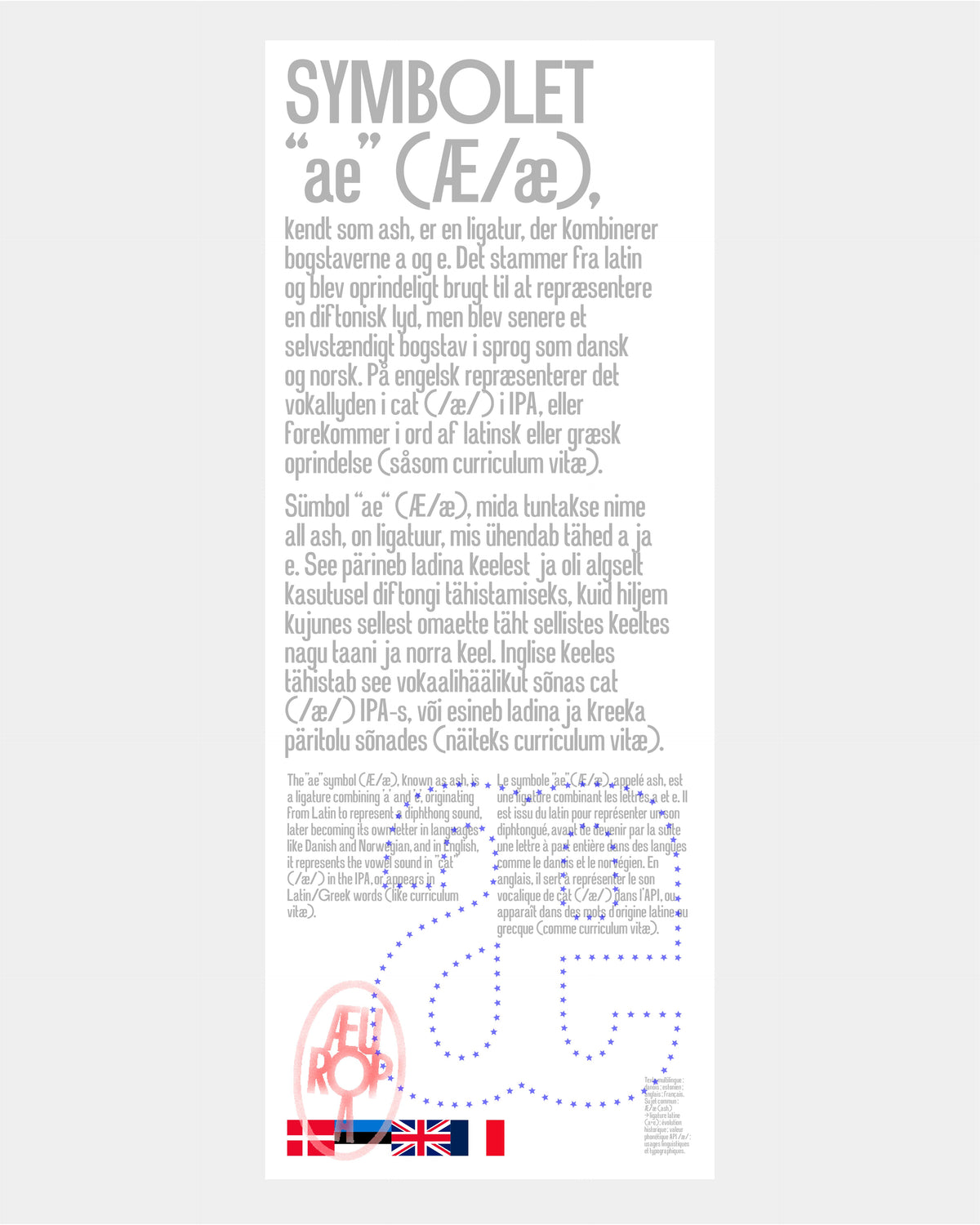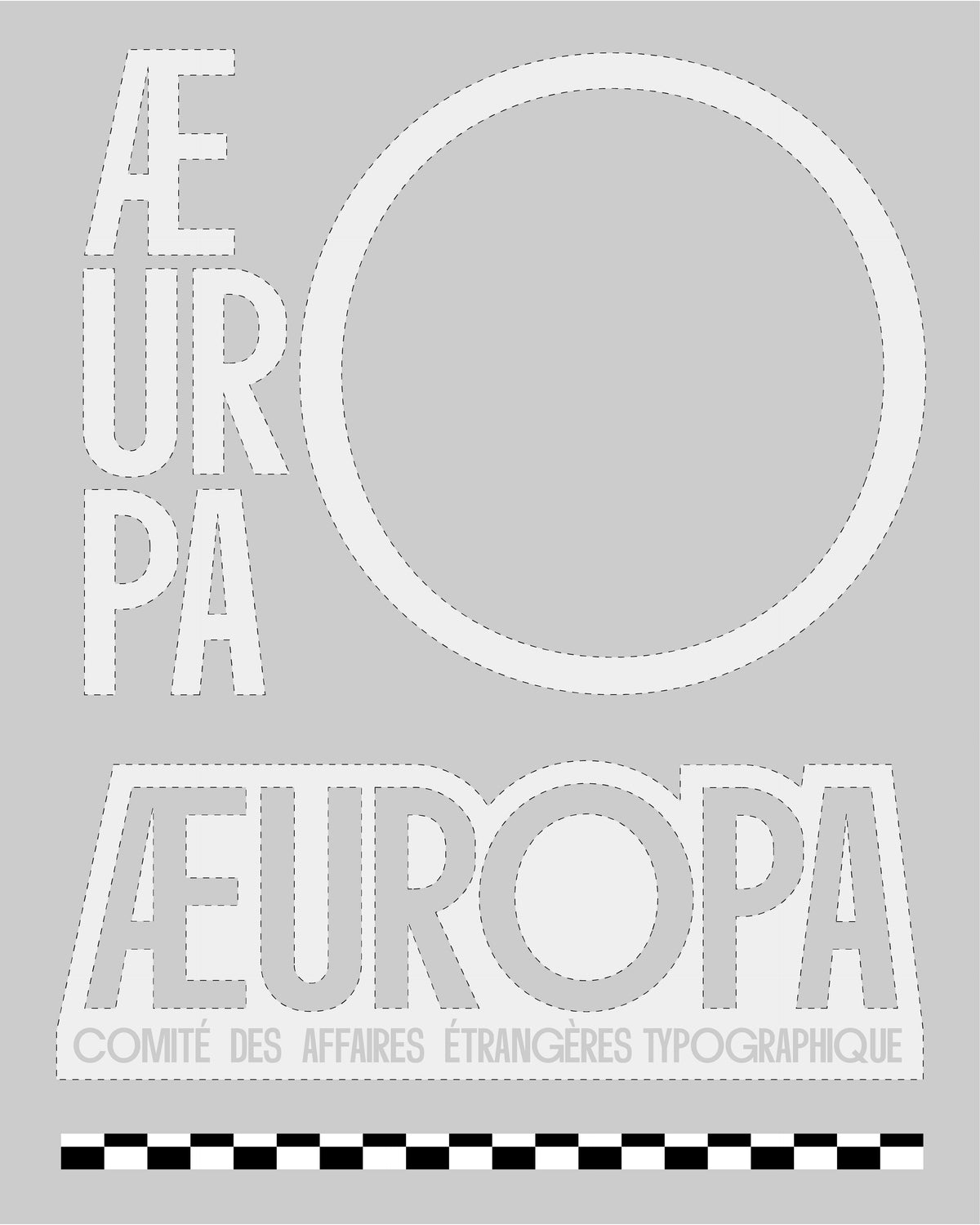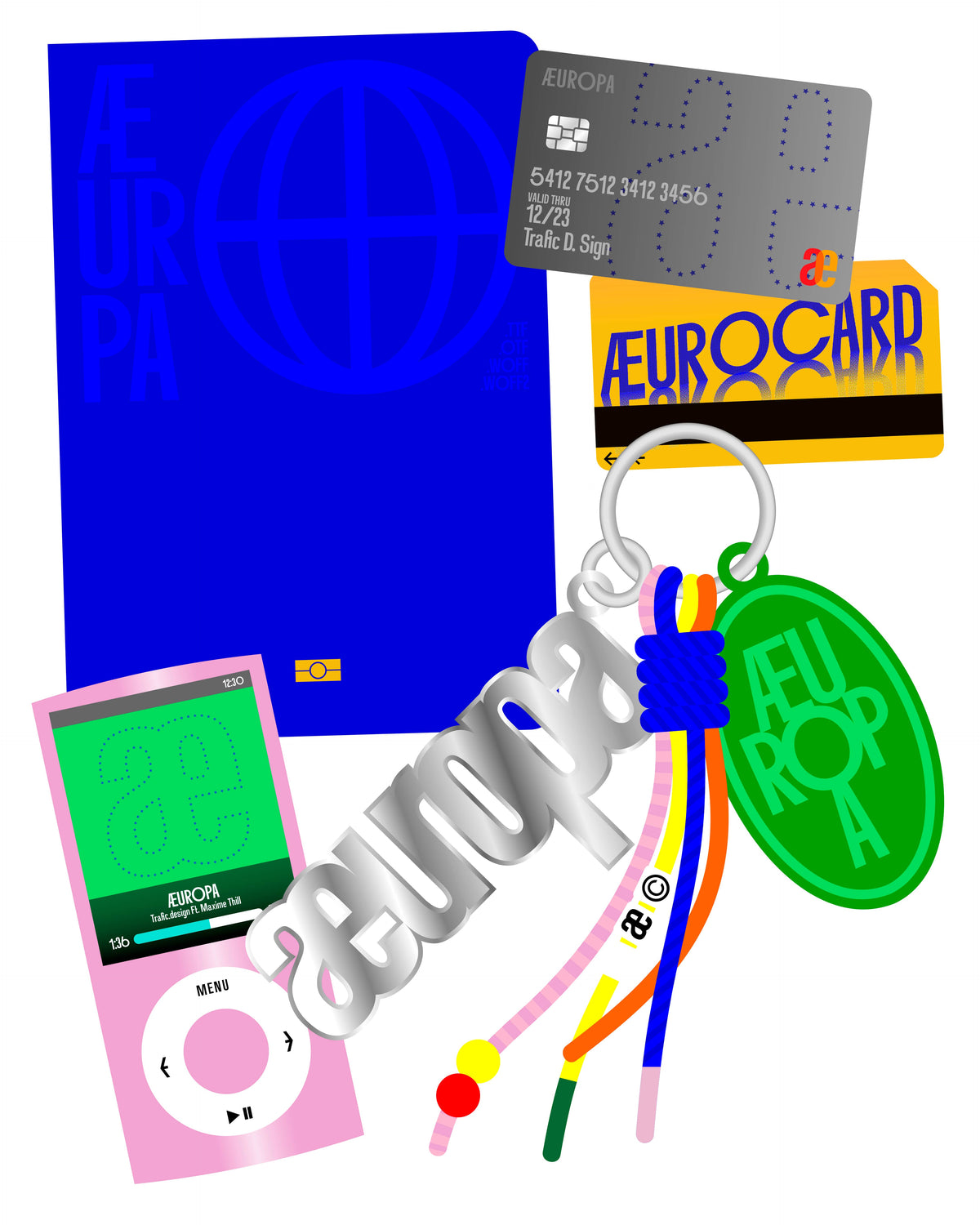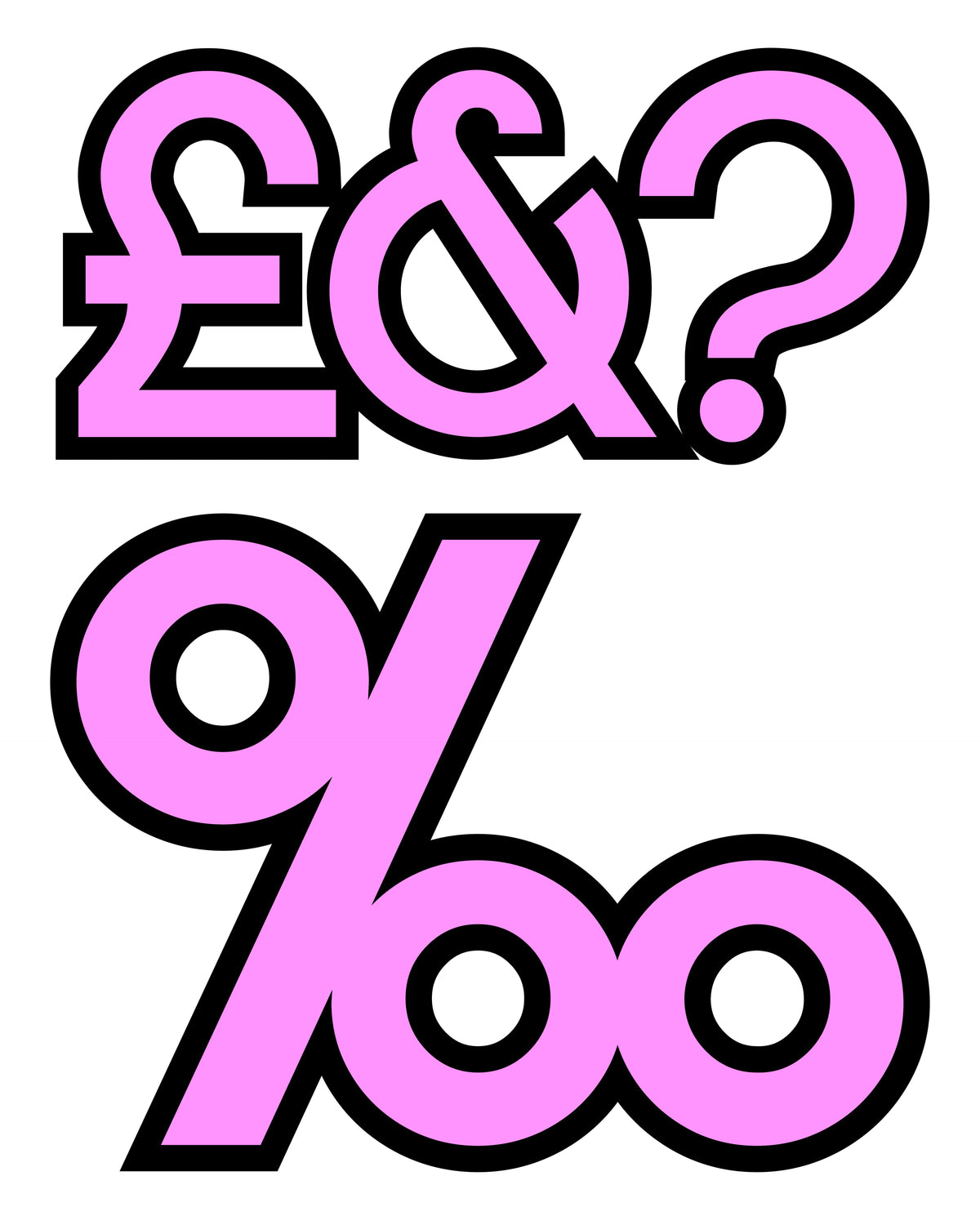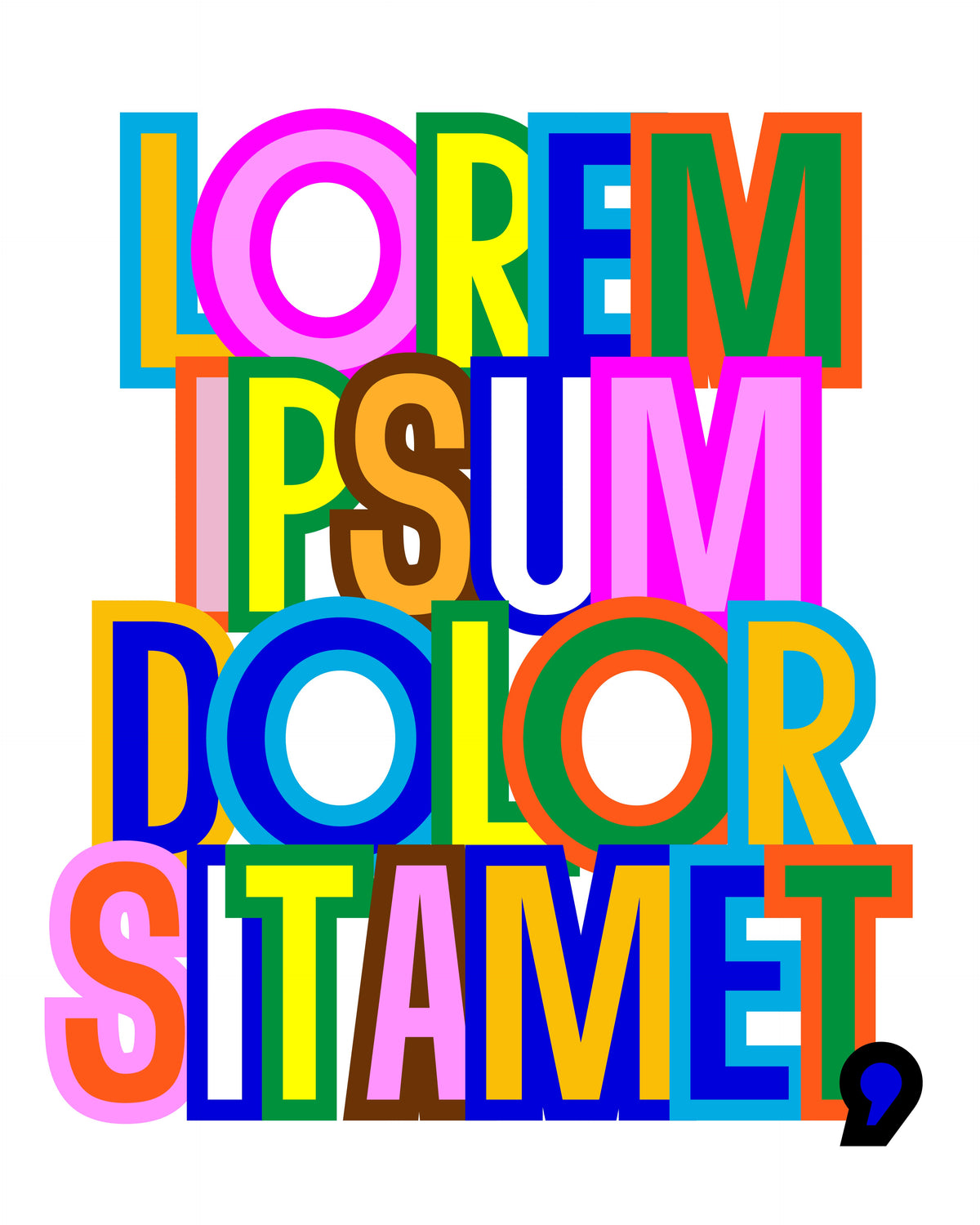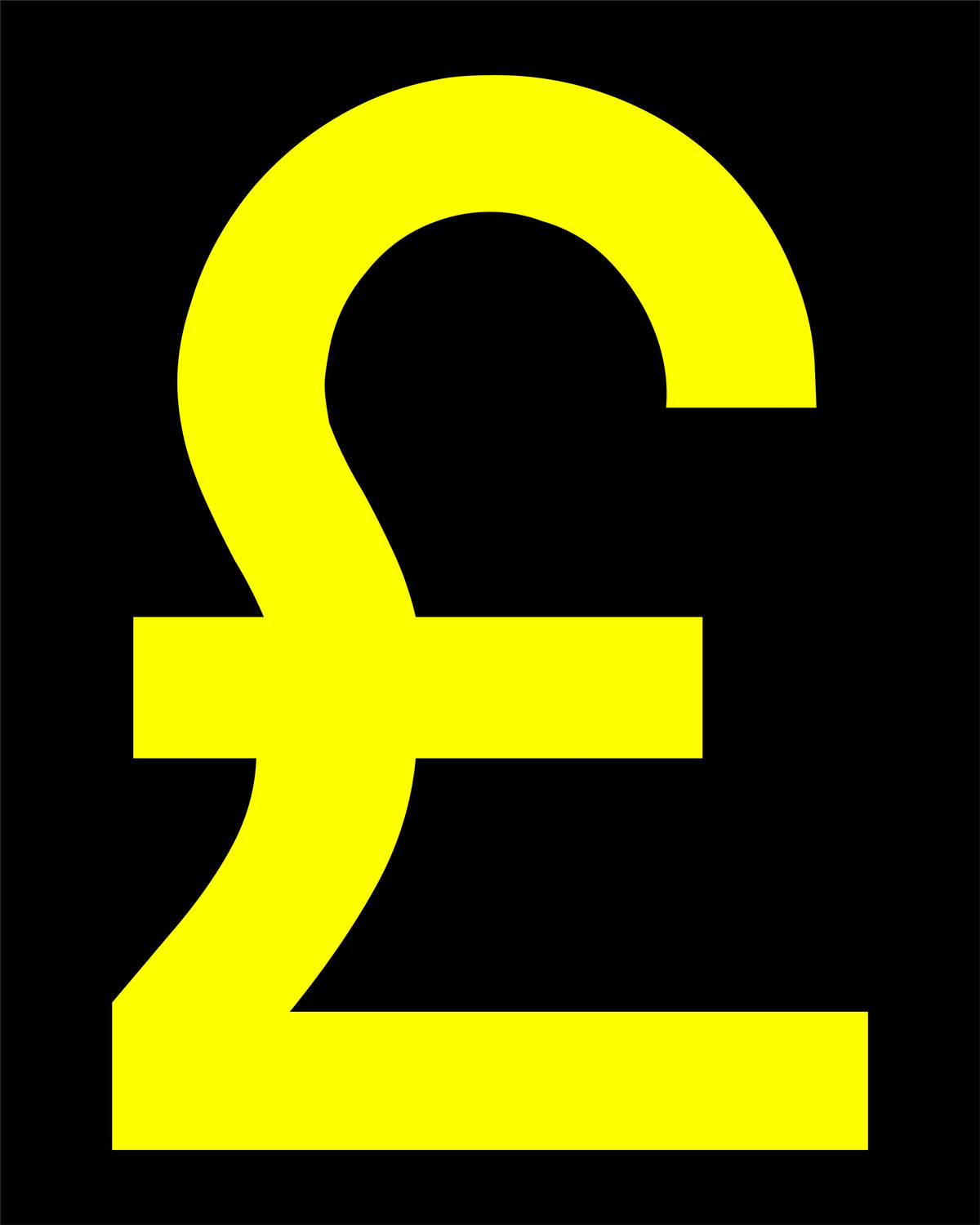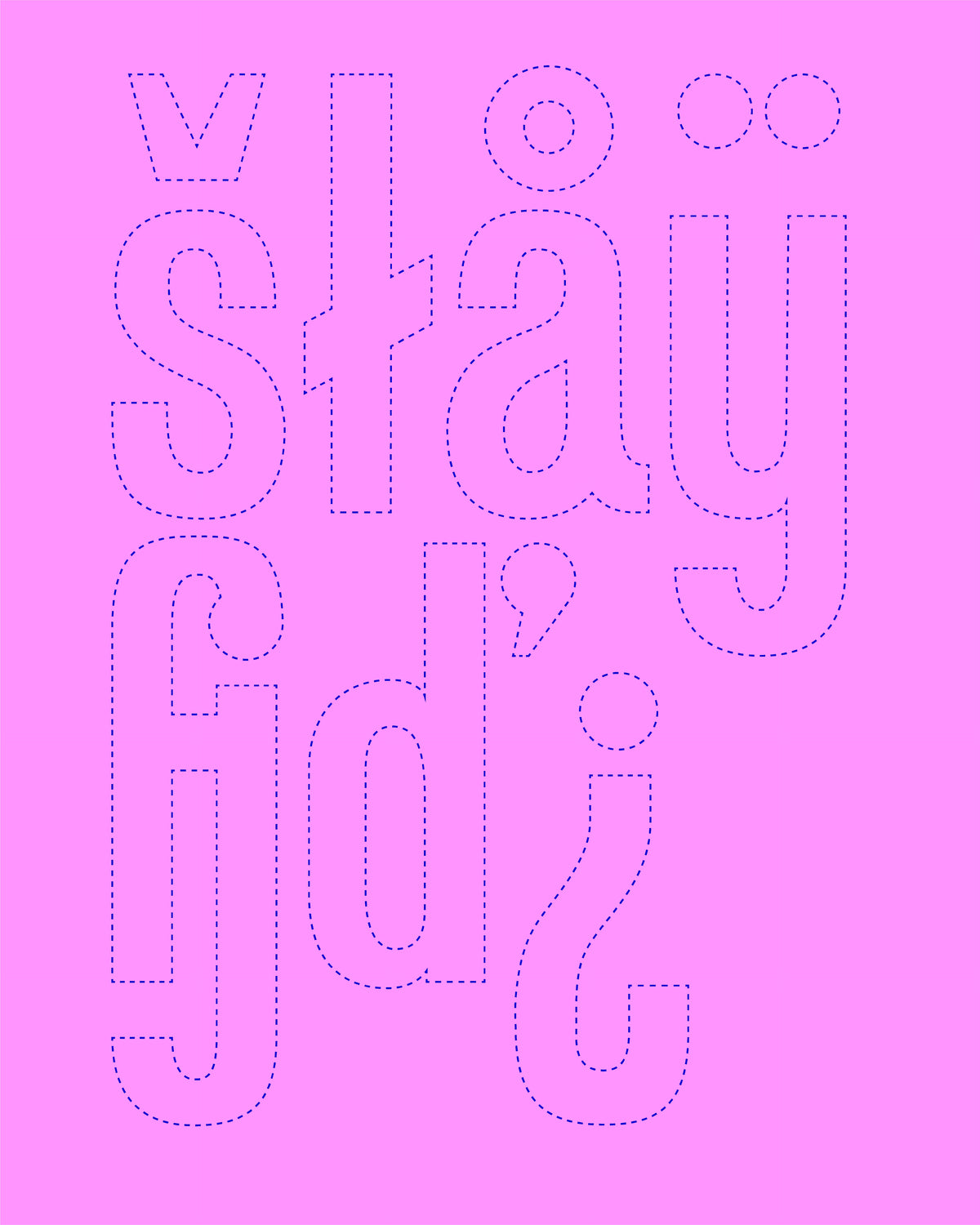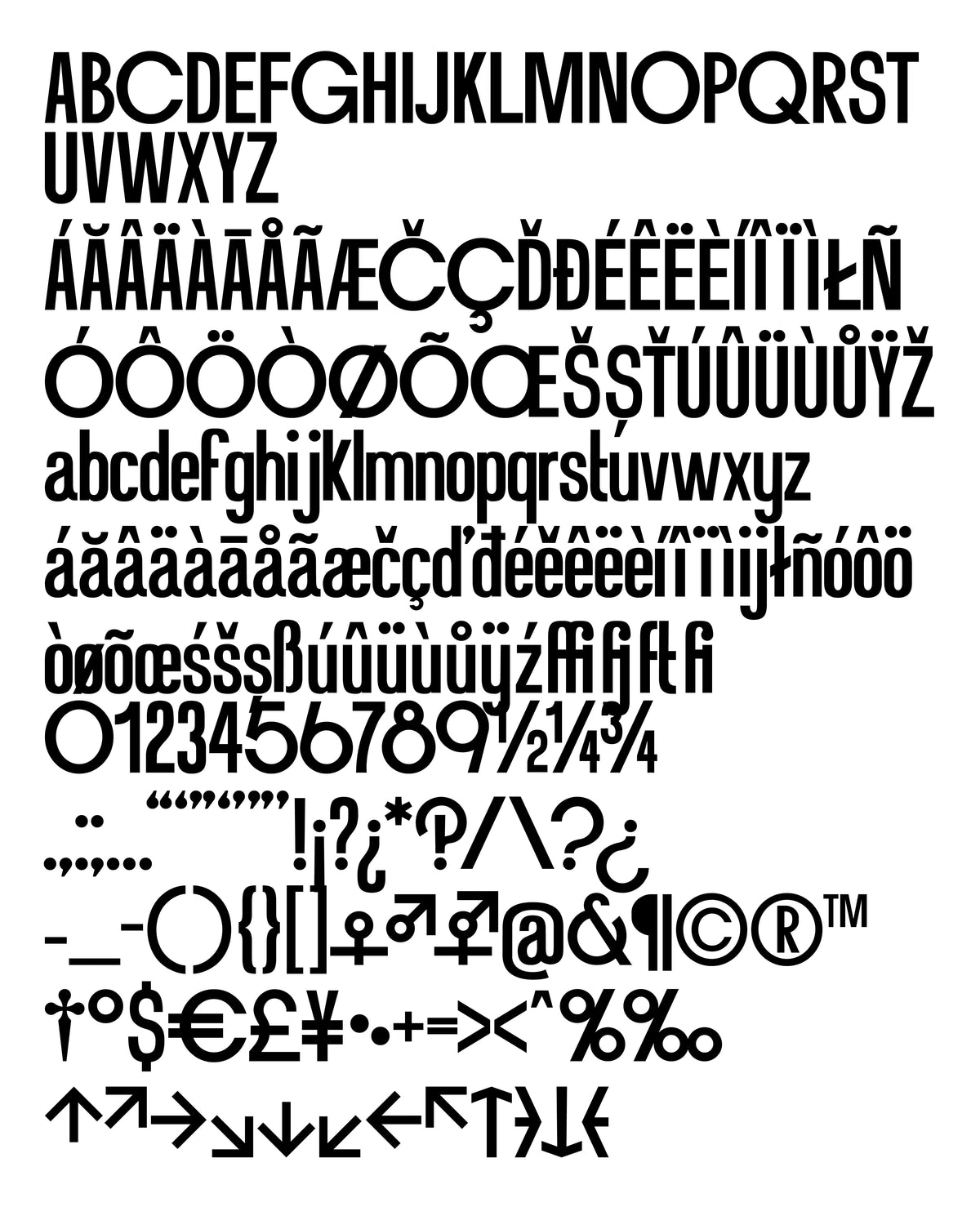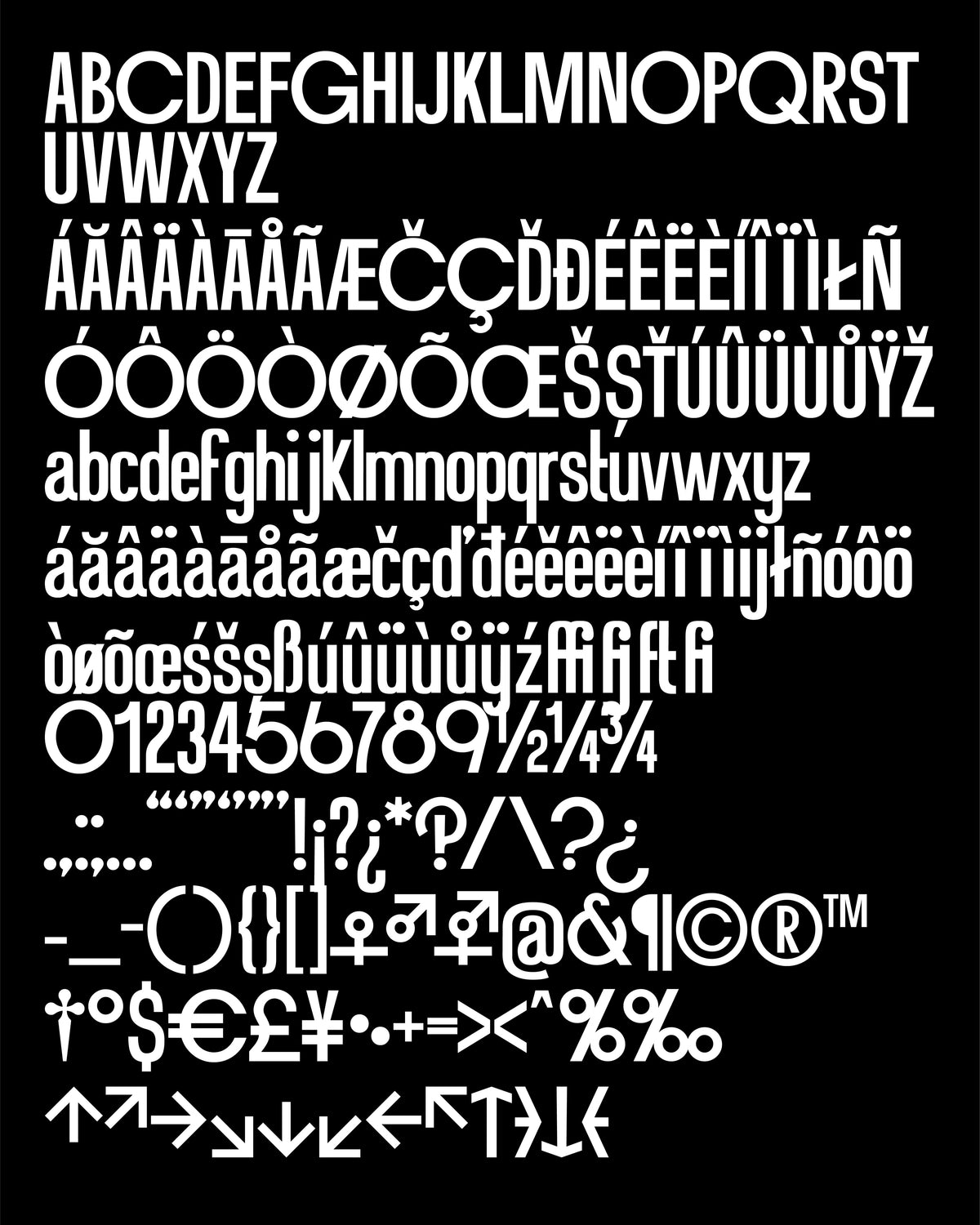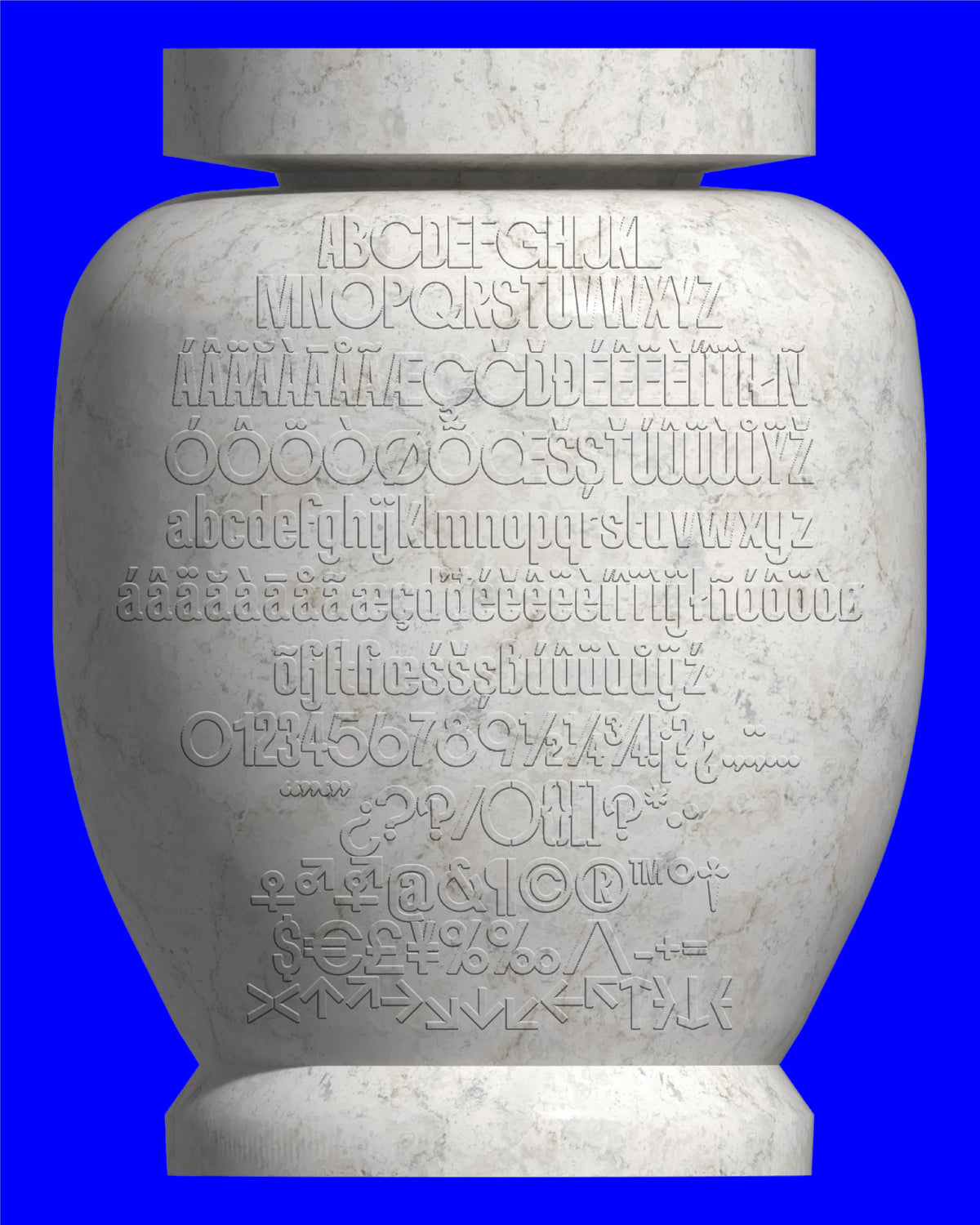
ÆUROPA Typeface
ÆUROPA is a modern, geometric condensed typeface inspired by the diversity of Europe’s languages and their many accents. With 223 glyphs, it supports a broad range of languages and symbols, enabling versatile and expressive use. The richness of European cultures is reflected in its design through clean, simple forms that adapt to a wide variety of applications, while conveying a sense of modernity and dynamism. Remember to always explore and have fun!
• 223 Glyphs
• Character set: Latin European
• Lowercase
• Diacritics
• Symbols
• Currency
• Arrows
• Mathematics